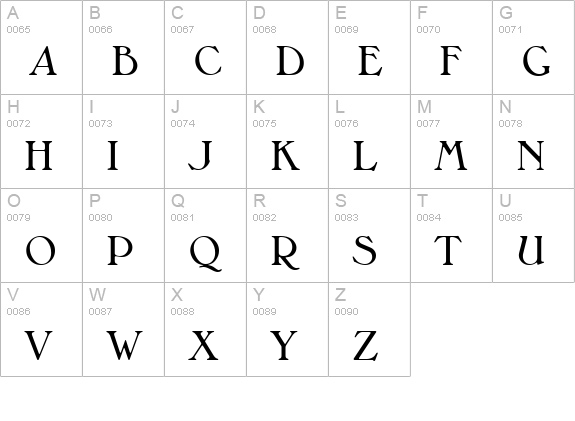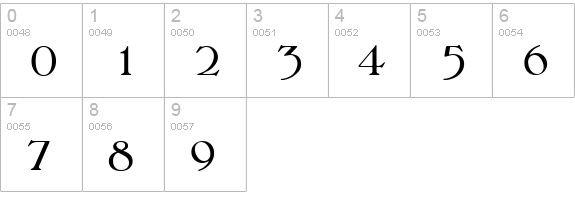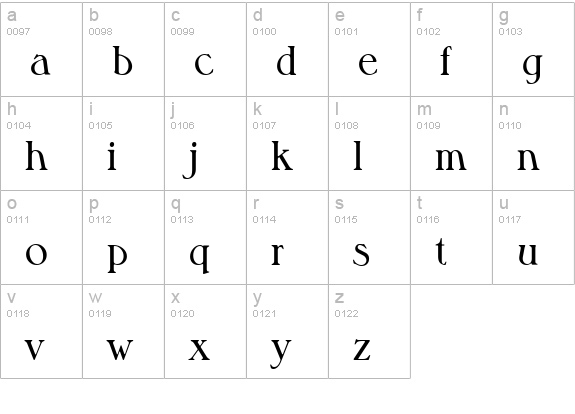
MelbourneSerial-Regular is the standard, neutral variant in the MelbourneSerial typeface family \xE2\x80\x94 well suited to general body text, paragraphs, and standard typographic work.
MelbourneSerial-Regular font is a modern and stylish typeface that exudes sophistication and elegance. Its clean lines and contemporary design make it perfect for a wide range of projects, from branding to advertising and everything in between. The font features a sleek and professional look that is sure to make your text stand out. Best of all, MelbourneSerial-Regular font is available for free download at FontsMarket.com. This means you can easily access this high-quality font without any cost, making it a fantastic option for designers and creatives looking to elevate their work without breaking the bank. Don't miss out on this opportunity to add MelbourneSerial-Regular font to your font library today!